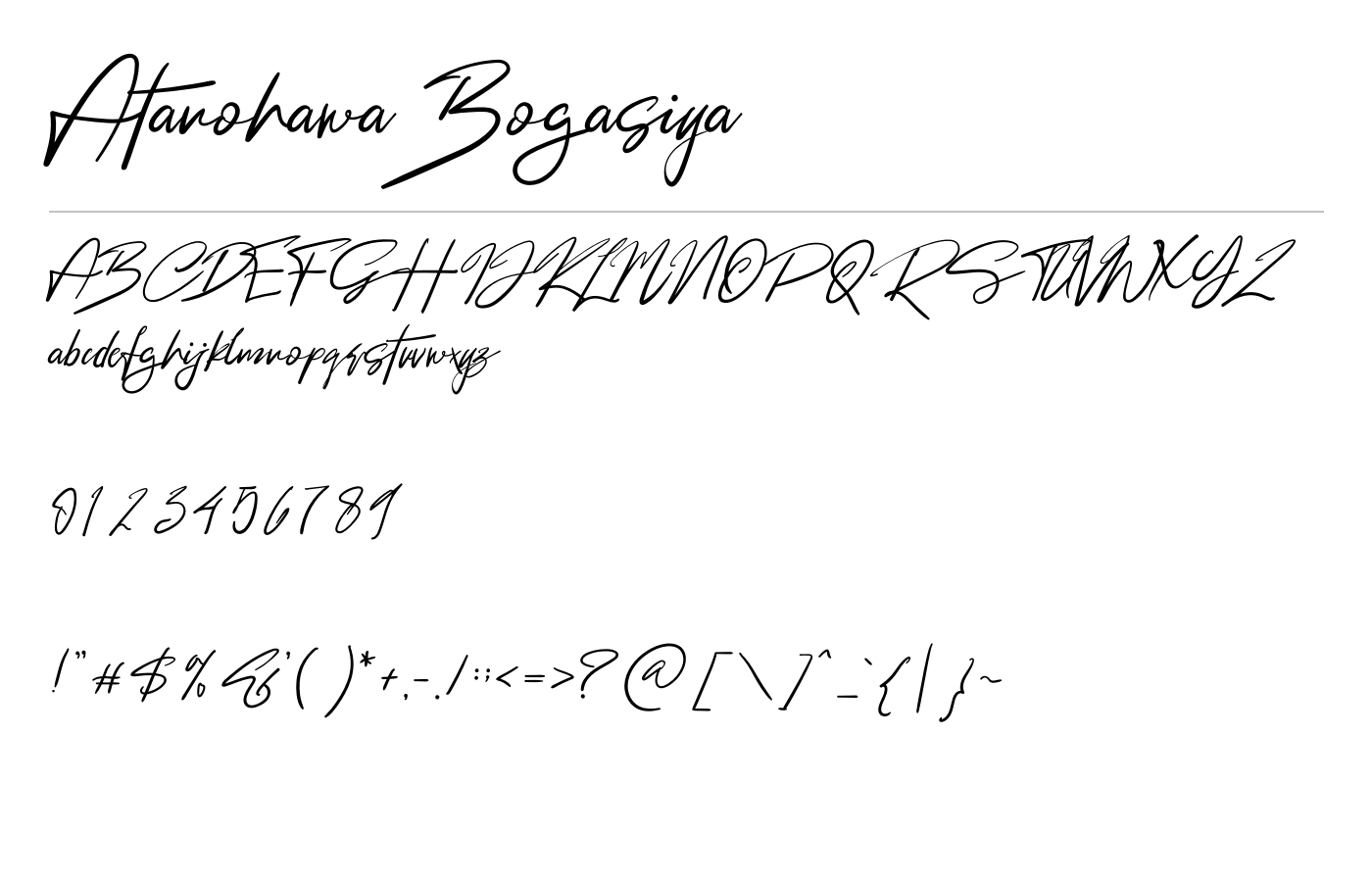
Atanohawa Bogasiya is a delicate, handwritten script font with a light weight and graceful, flowing strokes that create an elegant and artistic feel. Its tall, narrow letterforms with varied line thickness and distinctive cursive style make it perfect for stylish logos, invitations, and creative branding that seeks a personal and refined touch. This font stands out in designs that value softness and expressiveness, bringing a modern yet intimate personality to your text.
Atanohawa Bogasiya Font
About Atanohawa Bogasiya Font